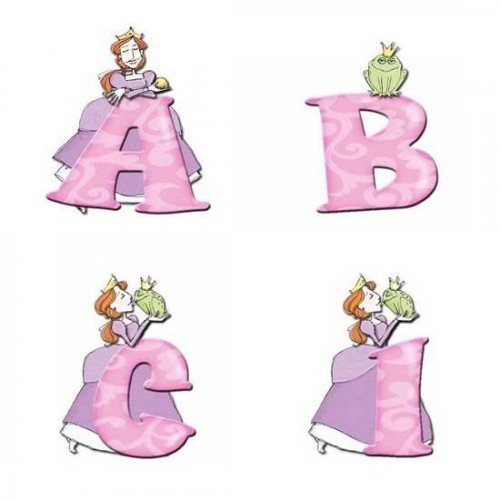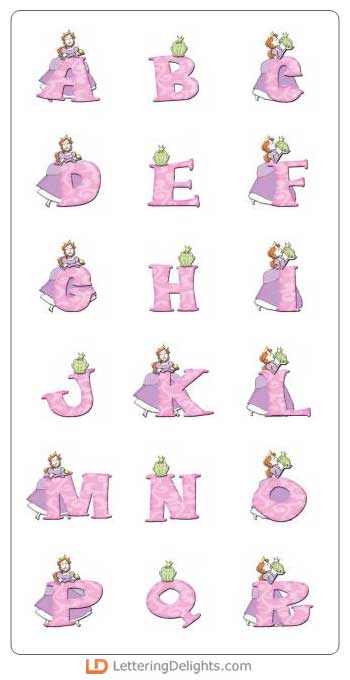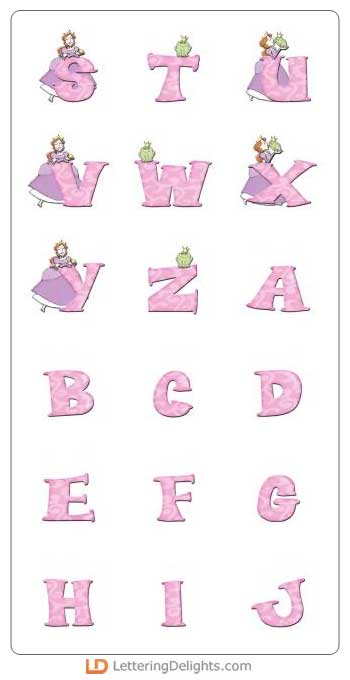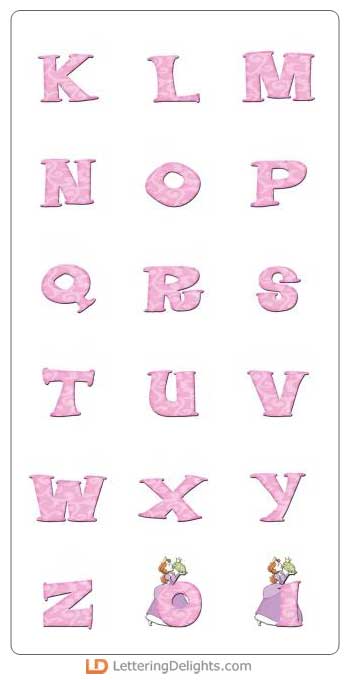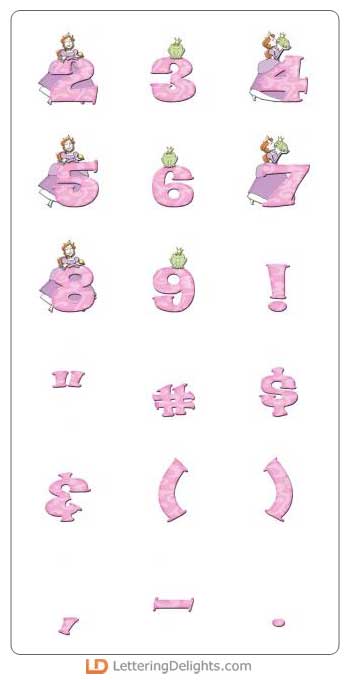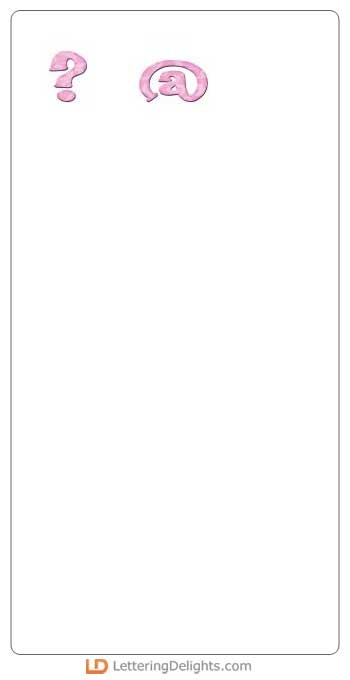
You never know until you kiss the frog! Download this fun-loving alphabet for creative lettering on bulletin boards, newsletters, greeting cards, announcements, signs and other word art. Embellish your paper crafts with the matching Journaling Delight set.